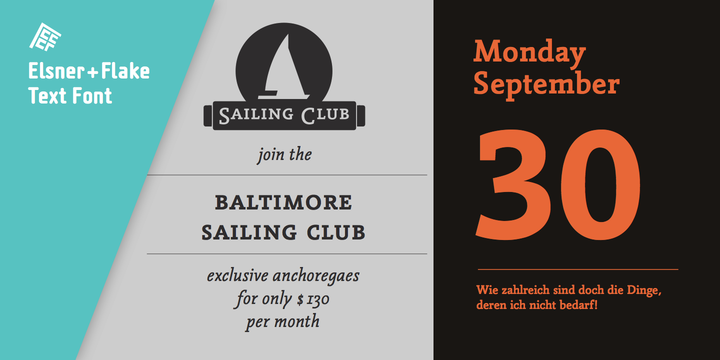
The font superfamily Vianova contains each 12 weights of Sans and Slab and 8 weights of the Serif style.
The design from Jürgen Adolph dates back into the 1990s, when he studied Communication Design with Werner Schneider as a professor at the Fachhochschule Stuttgart.
Adolph started his carrier 1995 at Michael Conrad & Leo Burnett. He was responsible for trade marks as Adidas, BMW, Germanwings and Merz. He has been honored as a member of the Art Directors Club (ADC) with more than 100 awards